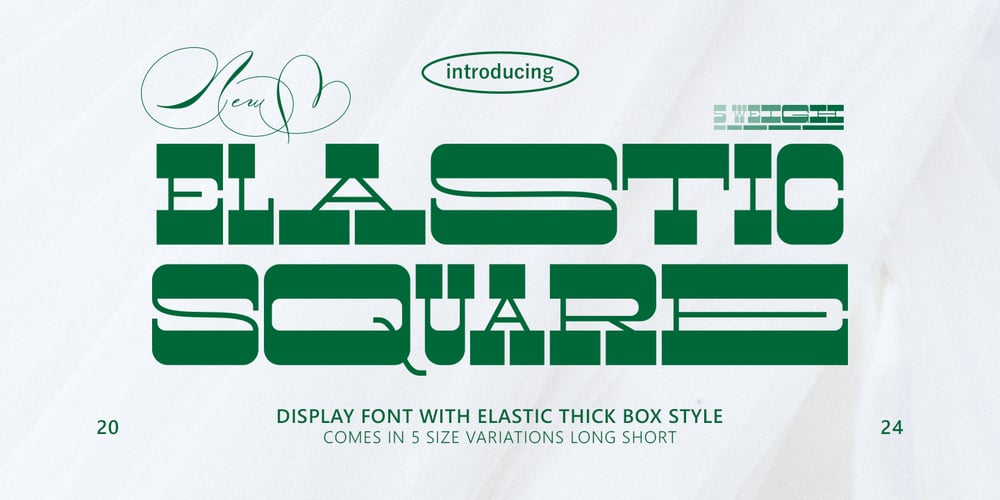
Elastic Square Font Family was designed by Jamaluddin and published by Jamalodin. Elastic Square contains 1 styles and family package options. ELASTIC SQUARE is beautiful display font that is suitable for branding, posters, name card, quotes, blog header, logo, fashion, apparel, letter, stationery and other projects. Come with 5 variations alternative characters and ligatures. Uppercase & Lowercase International Language & Symbols Support Punctuation & Number PUA Unicode. If you don’t have a program that supports OpenType features such as Adobe Illustrator and CorelDraw X Versions, you can access all the alternate glyphs using Font Book (Mac) or Character Map (Windows).If you have any question, don’t hesitate to contact me. Thanks for your visit.